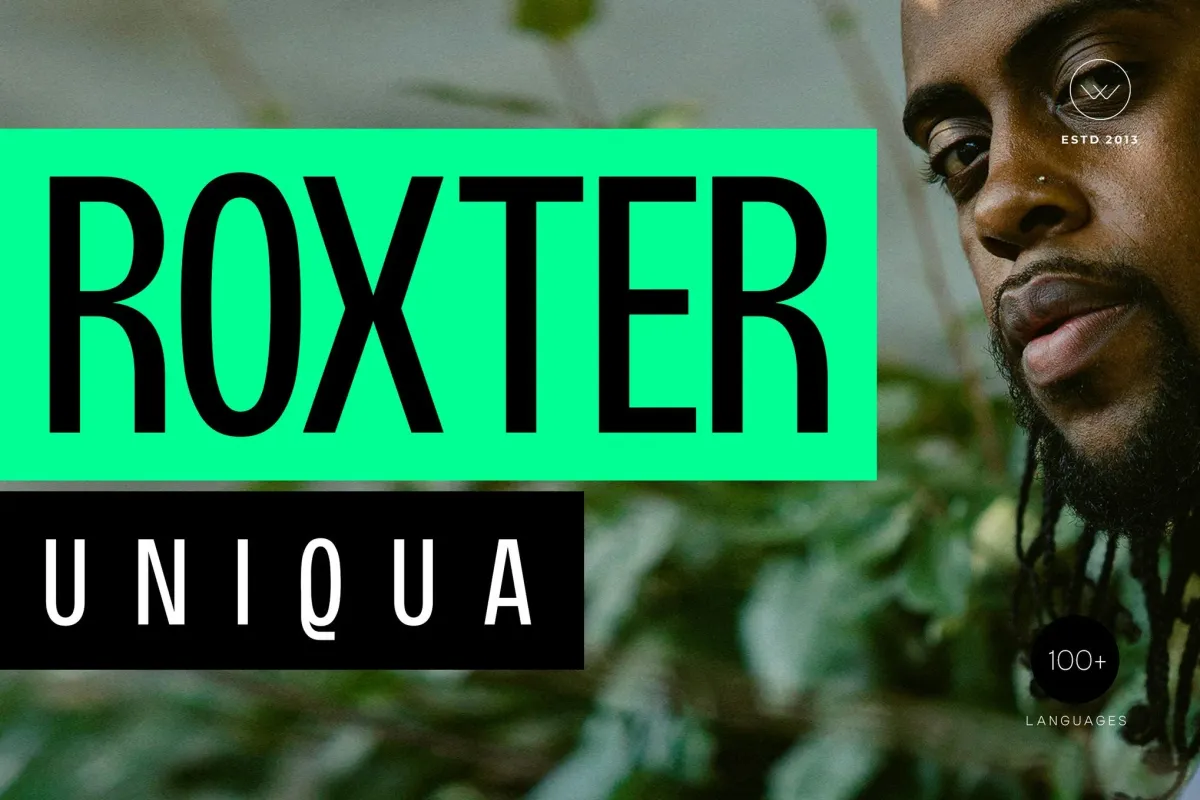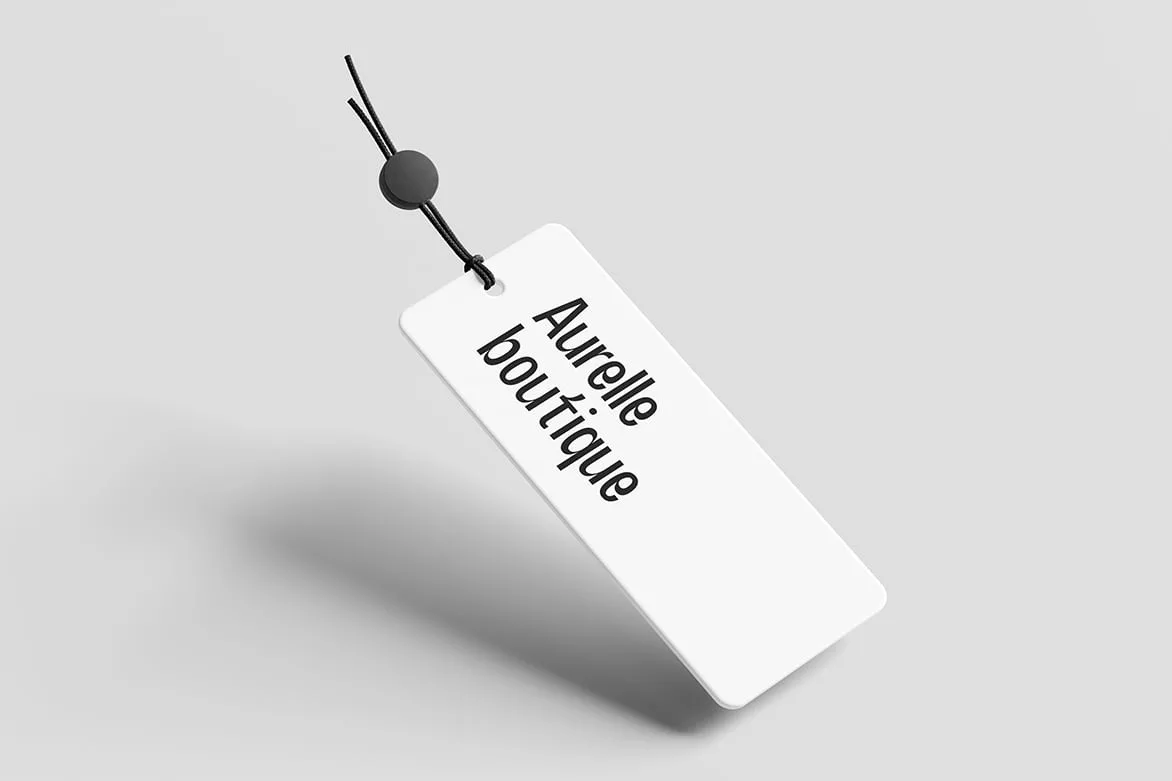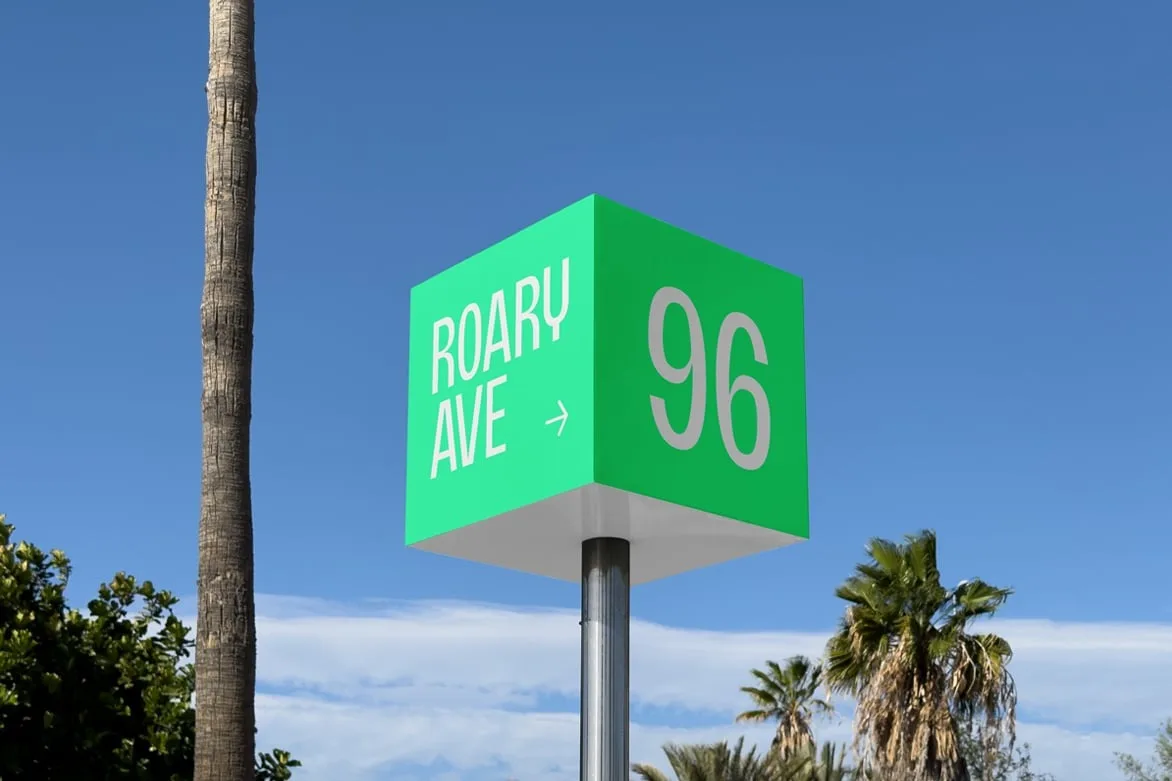
Roxter
0Roxter, a standout in the sans-serif category, is designed to convey a sense of modern elegance while maintaining a distinctive personality. The font features carefully crafted curves and well-considered spacing that enhance its readability and visual appeal. Its unique character makes it particularly suitable for a range of applications, including logo designs, social media posts, and marketing sites tailored for platforms like Instagram, YouTube, and TikTok.
The versatility of Roxter shines through in its potential use for editorial layouts and branding initiatives. Whether you're creating bold video titles, dynamic posters, or stylish graphics, this font's ability to adapt to different contexts ensures it meets the demands of contemporary design. With its strong presence and sophisticated aesthetic, Roxter stands out in the crowded landscape of modern fonts, making it an excellent choice for those looking to differentiate their visual identity.
Roxter supports Latin languages and features refined kerning, allowing for precise typographic adjustments. This attention to detail not only enhances legibility but also ensures that each letterform harmonizes beautifully, regardless of the weight or style in which it is used. In a world where first impressions matter, Roxter provides the ideal solution for designers who wish to create impactful and memorable branding experiences.